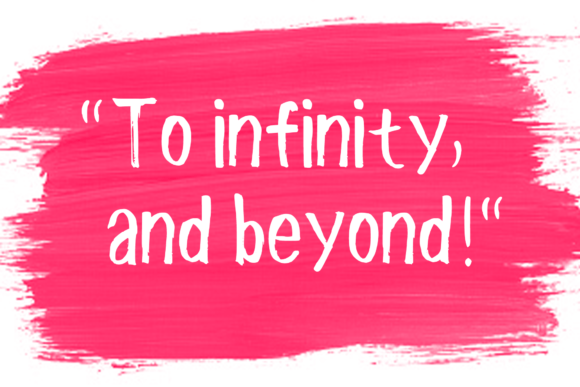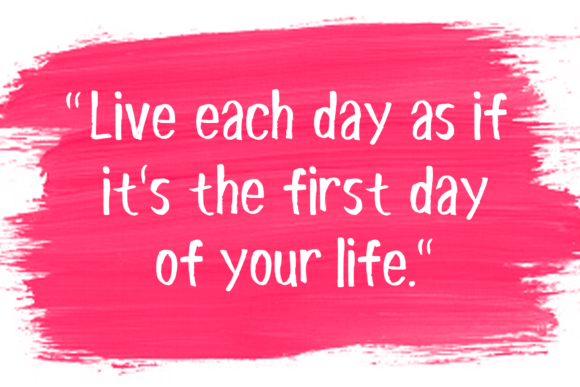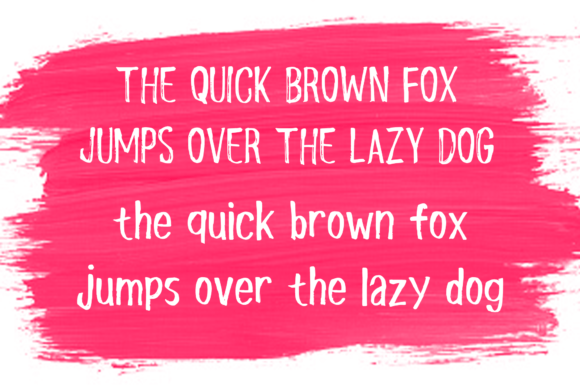
Introducing Brush Marker Font: Add a Personal Touch to Your Designs
Are you tired of using the same old fonts in your designs? Do you want to add a personal touch that sets your work apart? Look no further than Brush Marker Font, a fun and versatile display font that’s perfect for a wide range of projects. In this article, we’ll take a closer look at Brush Marker Font, its features, and how you can use it to create stunning designs.
What is Brush Marker Font?
Brush Marker Font is a unique display font created using real brush marker hand lettering. This font is designed to bring a casual and playful touch to your designs, making it perfect for projects that require a more relaxed and creative approach. With its hand-crafted feel, Brush Marker Font is ideal for designers and crafters who want to add a personal touch to their work.
Features of Brush Marker Font
So, what makes Brush Marker Font so special? Here are some of its key features:
- Hand-crafted feel: Brush Marker Font is created using real brush marker hand lettering, giving it a unique and personal touch.
- Versatile style: This font is incredibly versatile and can be used for a wide range of projects, from t-shirts and kids’ book designs to greeting cards and posters.
- Casual and playful: Brush Marker Font has a casual and playful feel that’s perfect for designs that require a more relaxed approach.
Uses of Brush Marker Font
So, what can you use Brush Marker Font for? The possibilities are endless! Here are some ideas to get you started:
- T-shirts and apparel: Add a personal touch to your t-shirt designs with Brush Marker Font.
- Kids’ book designs: Create engaging and interactive kids’ books with this fun and playful font.
- Greeting cards: Add a personal touch to your greeting cards with Brush Marker Font.
- Stickers and posters: Use this font to create eye-catching stickers and posters that grab attention.
Tips for Using Brush Marker Font
Here are some tips for using Brush Marker Font in your designs:
- Experiment with colors: Brush Marker Font looks great in a variety of colors, so don’t be afraid to experiment and find the perfect hue for your design.
- Play with textures: Add texture to your design by combining Brush Marker Font with different textures and patterns.
- Keep it simple: Don’t overcomplicate your design. Brush Marker Font is perfect for simple and clean designs that require a personal touch.
In conclusion, Brush Marker Font is a fun and versatile display font that’s perfect for designers and crafters who want to add a personal touch to their work. With its hand-crafted feel and casual style, this font is ideal for a wide range of projects, from t-shirts and kids’ book designs to greeting cards and posters. So why not give Brush Marker Font a try and see how it can elevate your designs?